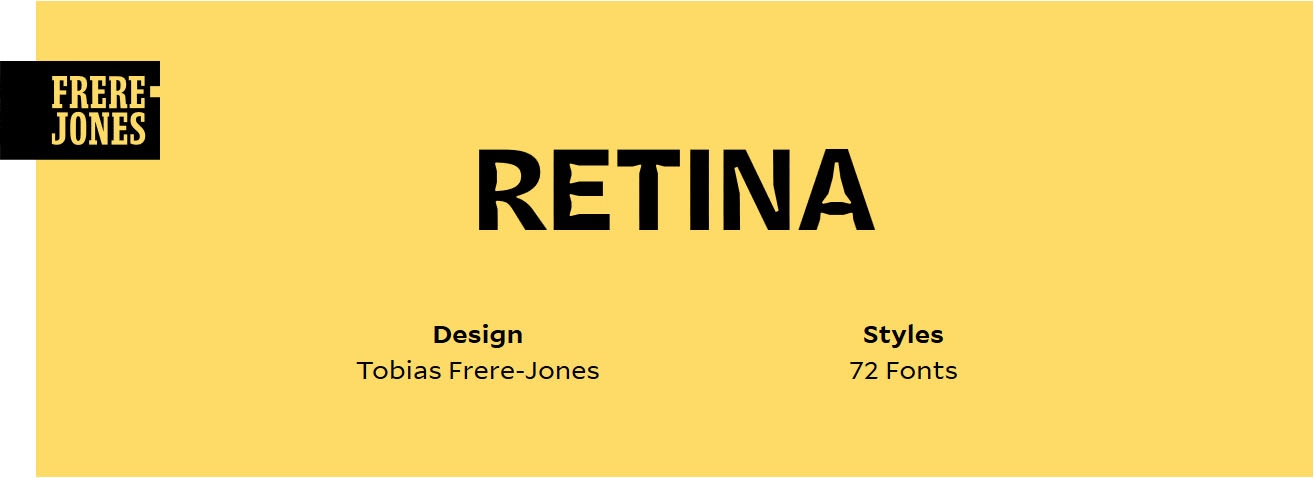
Retina Font
This font is perfect for website headers, app interfaces, branding, posters, social media graphics, and editorial layouts. Its clean lines and contemporary aesthetic make it ideal for both professional and creative projects.
What makes Retina Font Free Download exciting is its sharp, readable design that combines modern elegance with versatility. It enhances the visual impact of any text, making your designs appear polished and professional.
The font family of Retina includes styles such as Regular, Bold, Italic, and Light, providing designers with flexibility for creating hierarchy and emphasis across different media.
Overall, Retina Font Free Download is a must-have for designers seeking a modern, versatile typeface. From digital interfaces to print branding, this font delivers style, clarity, and sophistication to every project.